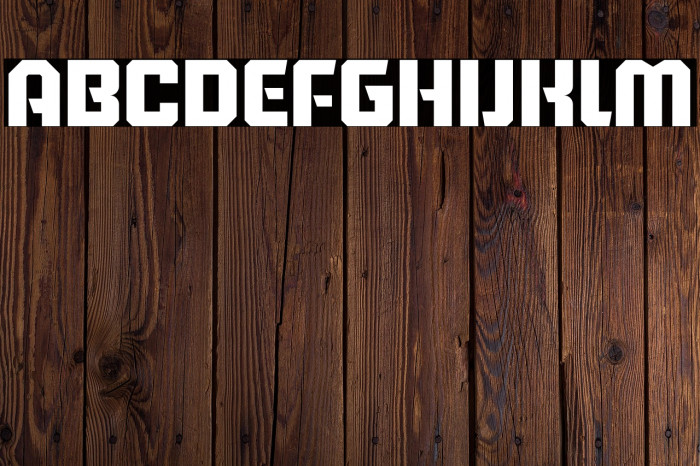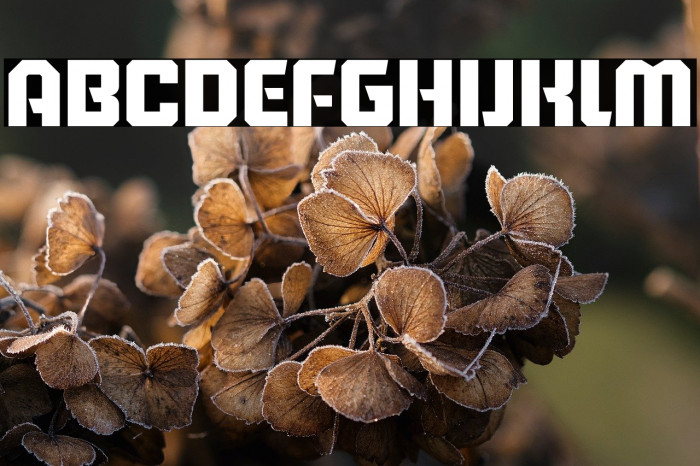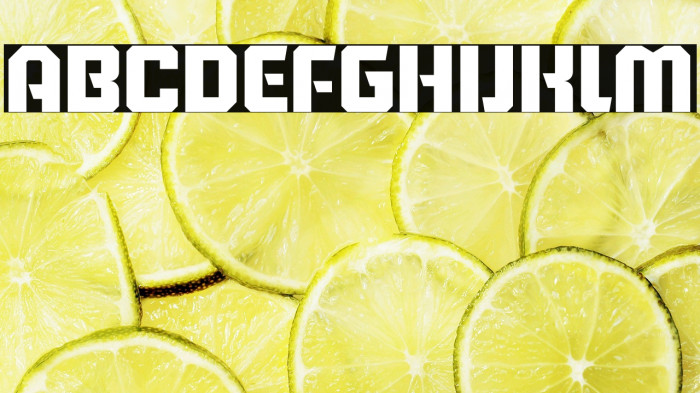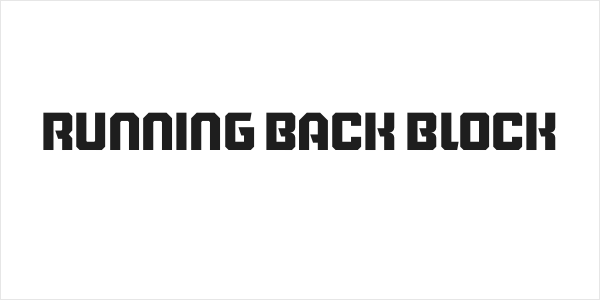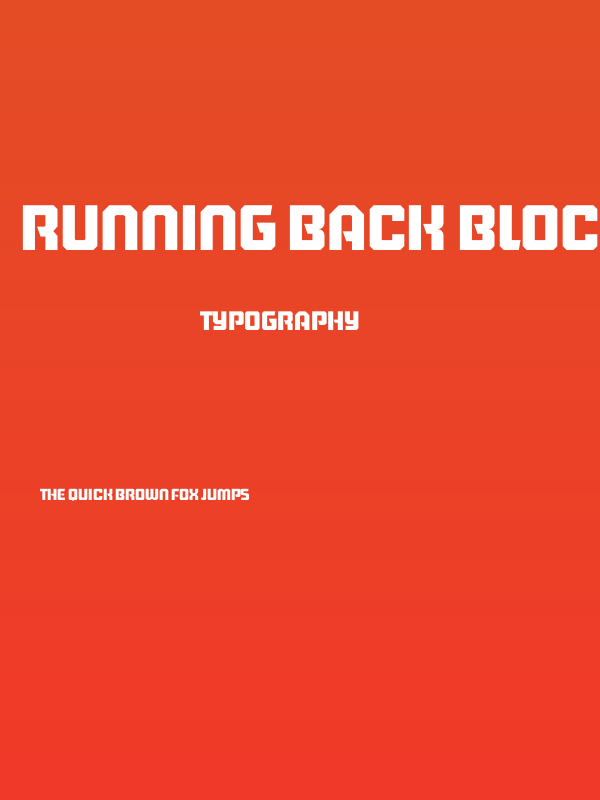
Running Back Block Font
Running Back Block Description
This font features a bold, geometric design with strong, angular lines and a blocky appearance. The characters are uniformly thick, creating a sense of strength and stability. The uppercase and lowercase letters maintain a consistent style, with sharp edges and a modern aesthetic. The numerals and special characters follow the same design principles, ensuring a cohesive look across all elements. This font's boldness and clarity make it suitable for impactful designs.
Overall StyleModern
Use CaseHeadlines, Logos, Posters
Proposed ProjectsIdeal for sports branding, posters, headlines, and any project requiring a strong, impactful typeface.